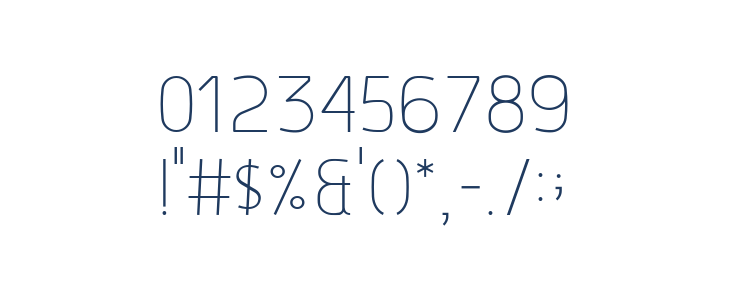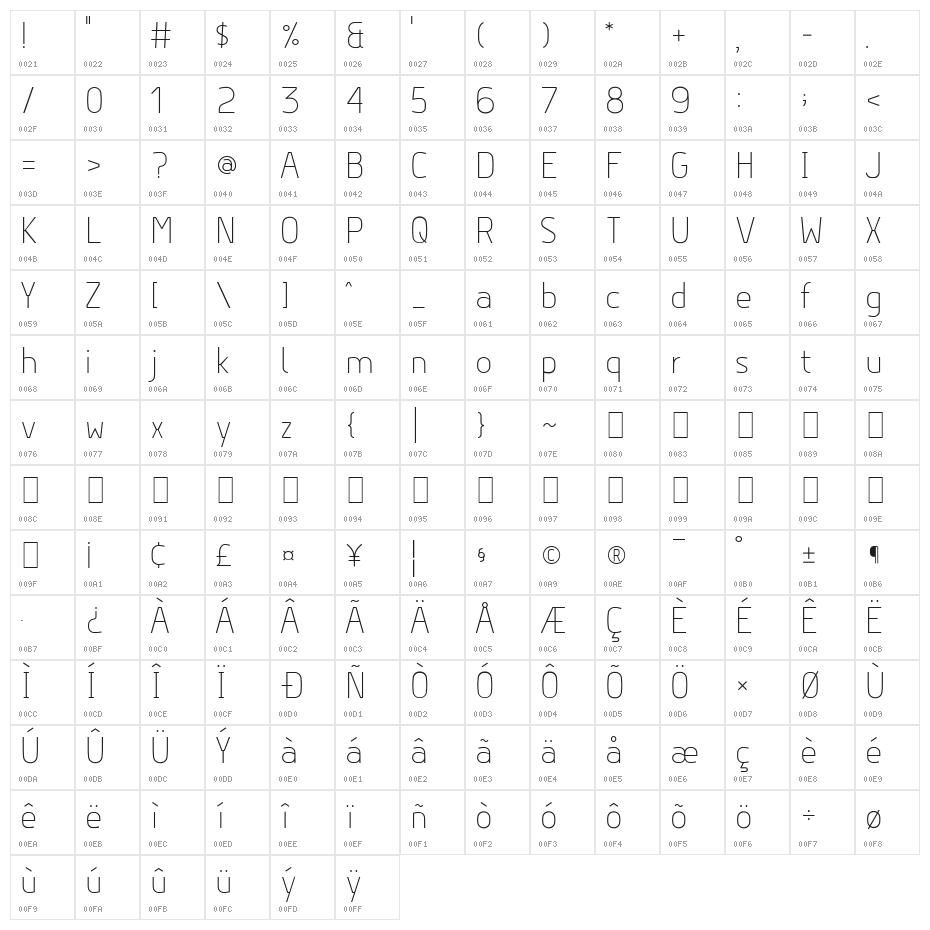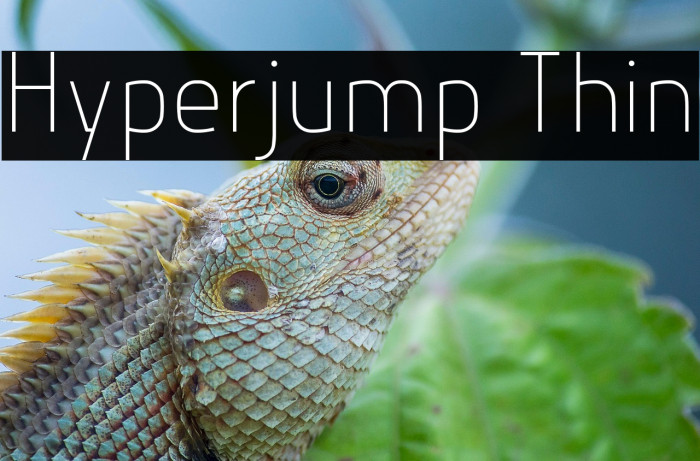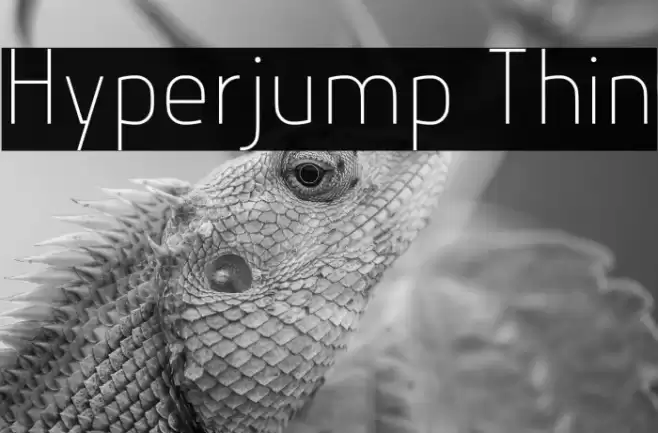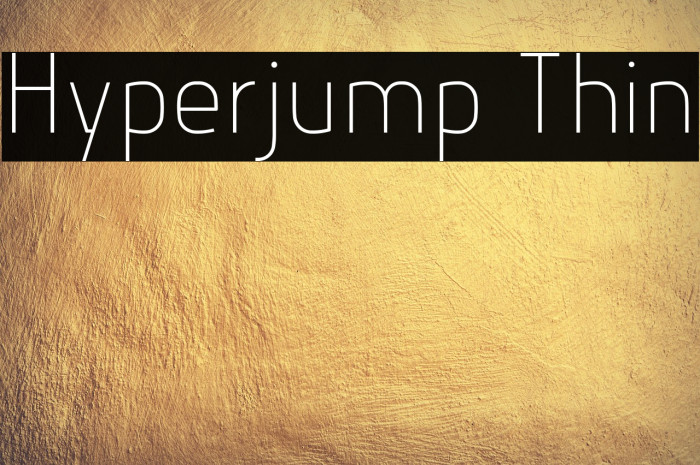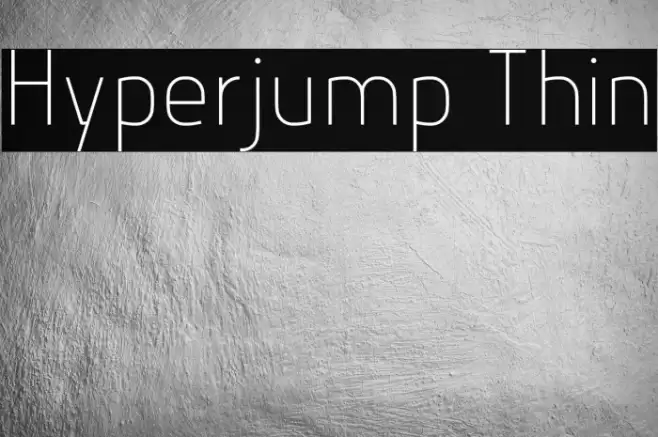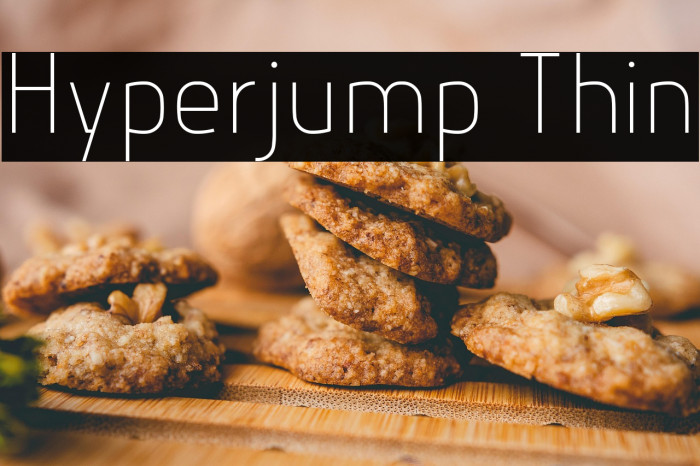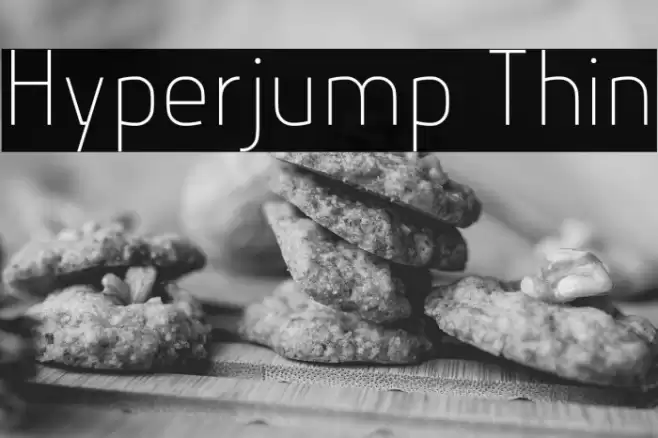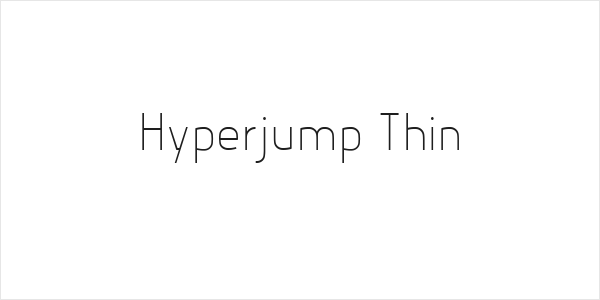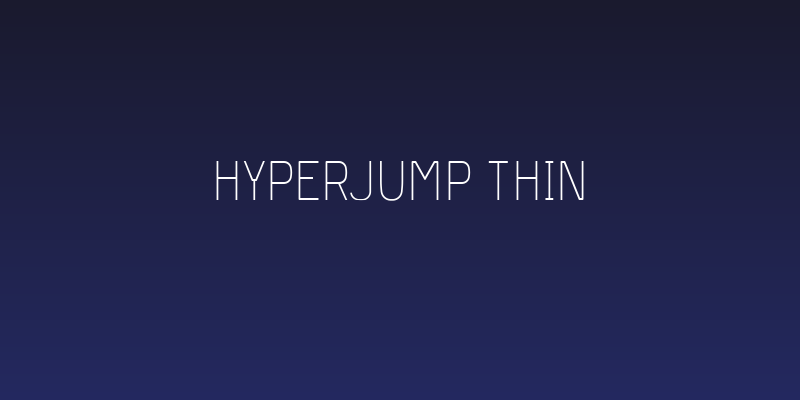
Hyperjump Thin Font
Hyperjump Thin Description
This font features a sleek and modern design with thin, clean lines that create a minimalist aesthetic. The characters are evenly spaced, providing a balanced and airy appearance. The uppercase and lowercase letters maintain a consistent height, contributing to a harmonious look. The numerals and special characters are designed with the same thin strokes, ensuring uniformity across all elements. The overall style is contemporary, making it suitable for projects that require a modern and sophisticated touch.
| Proposed Projects | Ideal for tech branding, minimalist posters, modern websites, and digital interfaces. |